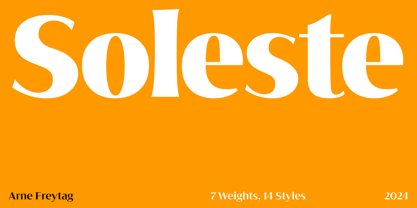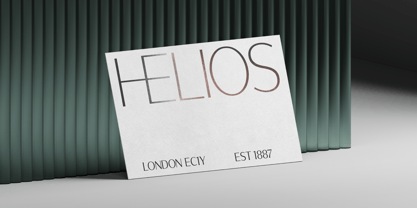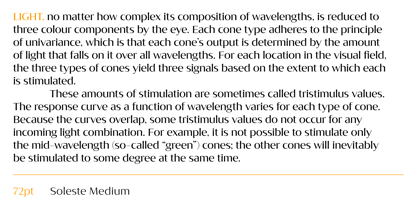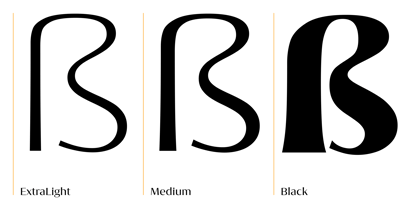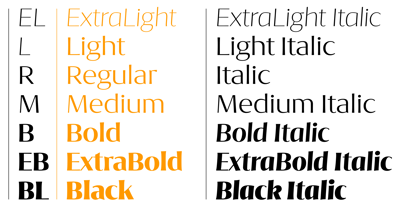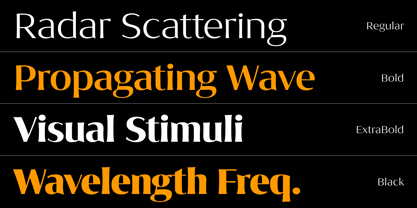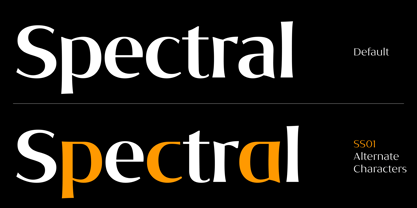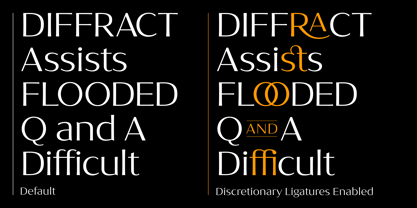
Soleste™
by Monotype
The Soleste Font Family was designed by Arne Freytag and published by Monotype. Soleste contains 14 styles. More about this family
Soleste is a sans serif. Extreme contrast between thick and thin strokes and the treatment of the stems and stroke endings gives Soleste a harmonic and stylish look. In the lower case they incised shapes are not so strong, but still vigorous enough to distinguish themselves from a regular sans serif with straight stems. The endings of the individual characters, both in lower case and in capitals, are treated very intuitively. There is almost no exact horizontal or vertical ending, which makes Soleste a very “calligraphic“ typeface. Combined with the lack of real serifs it is this contrast which makes Soleste somewhere midway between a sans and a serif design, with the balance in favour of a sans.
Designers: Arne Freytag
Foundry: Monotype